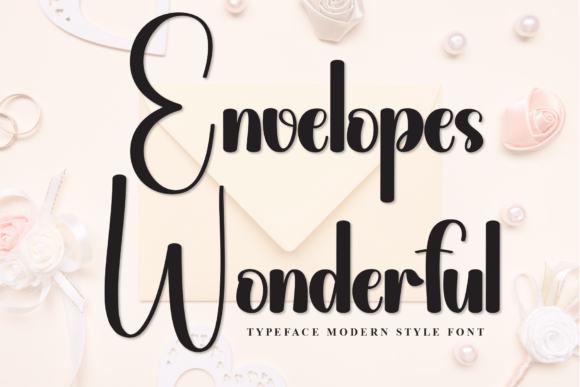
Who among us hasn’t felt a rush of excitement when scribbling a heartfelt message on a piece of paper? The tactile sensation of pen gliding across the page, the imperfect strokes that reveal our personality – it’s a sensory experience that’s hard to replicate with digital tools. That’s why we created the Envelopes Wonderful Font, affectionately named ‘Sweet and Friendly’, to capture the essence of handwritten charm.
Our font is designed to breathe life into every design, making it perfect for wedding invitations, greeting cards, and any project that requires a touch of whimsy. As a designer, you know how valuable it is to have a versatile font that can elevate your work and connect with your audience on an emotional level. The Envelopes Wonderful Font is a valuable addition to your toolkit, offering a delightful playfulness that’s sure to leave a lasting impression.
Key Features of Envelopes Wonderful Font
- Unique Characteristics: Envelopes Wonderful Font features a unique blend of vintage and modern elements, with intricate details and ornate flourishes.
Designer Review: Envelopes Wonderful Font
Envelopes Wonderful Font has some great qualities that make it a decent addition to any design project. ✨ It has a charming, handwritten feel that adds a personal touch to any text. The font is highly customizable, making it perfect for logos, titles, and other design elements where a unique look is desired. ✨ The font also includes a wide range of ligatures, which can help to create a more cohesive and polished look. ✨
However, there are some limitations to consider. ⚠️ The font can be quite difficult to read in certain contexts, particularly at small sizes or in low-light conditions. ⚠️ Additionally, the font may not be suitable for body text, as it can be quite distracting and difficult to scan. ⚠️
Overall, Envelopes Wonderful Font is a solid choice for designers who want to add a touch of personality to their projects. While it may not be suitable for every design task, it’s a great option for logos, titles, and other design elements where a unique look is desired. Just be sure to use it judiciously and consider the potential limitations.
Pros and Cons:
- ✨ Charming, handwritten feel
- ✨ Highly customizable
- ✨ Wide range of ligatures
- ⚠️ Difficult to read in certain contexts
- ⚠️ Not suitable for body text
- ⚠️ May be distracting in certain contexts
Envelopes Wonderful Font is perfect for creating invitations, wedding stationery, and other special occasion designs. To get the most out of it, use it in combination with other elegant fonts and graphics.
Alternatives to Envelopes Wonderful Font
Great Vibes is a beautiful, elegant script font that is perfect for creating invitations, wedding stationery, and other formal documents. It has a similar feel to Envelopes Wonderful Font, but with a more refined and sophisticated look.
Comparison: Great Vibes Font has a more refined and elegant feel, while Envelopes Wonderful Font has a more playful and whimsical touch.